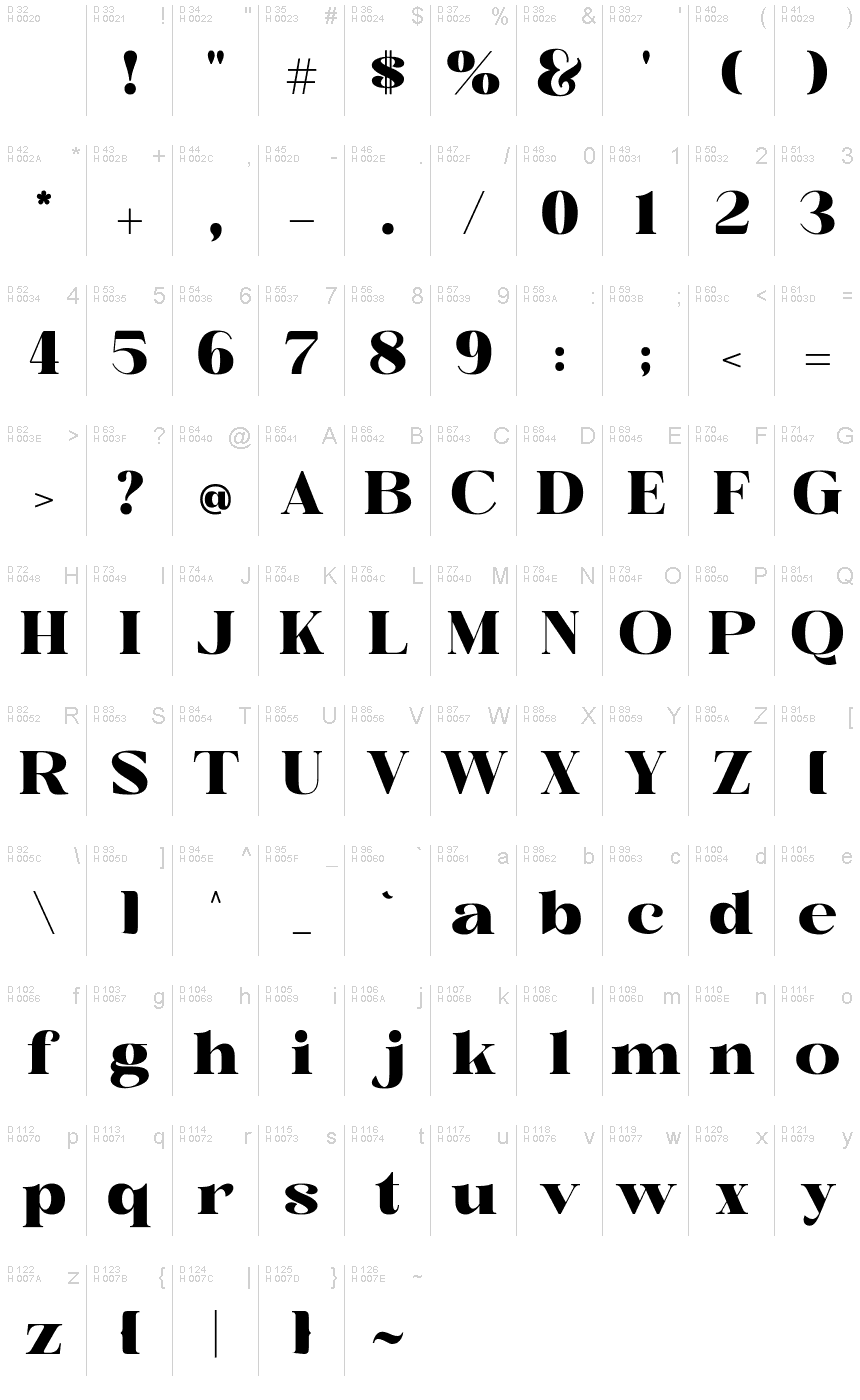
British Classical Demo Black
British Classical Black, from the British Classical family, stands as a testament to the timeless allure of 80’s retro-inspired design. Crafted by TypeClassHeroes, this serif typeface boasts an extra-bold weight with a semi-expanded width that exudes confidence and sophistication. Its joining ligatures weave a thread of fanciful uniqueness throughout each character, offering a smooth and clean finish that's simply captivating.
Within its repertoire lie nine variable weights that marry the classic with the contemporary, including both regular and italic styles. This versatility creates an enchanting typographic dance that's perfect for an array of creative endeavors. Whether it's branding or product packaging that demands attention, invitations that charm with every word, or striking t-shirts and posters designed to make a statement—British Classical Black is more than just text on a page; it's an invitation to craft narratives wrapped in elegance and nostalgia.